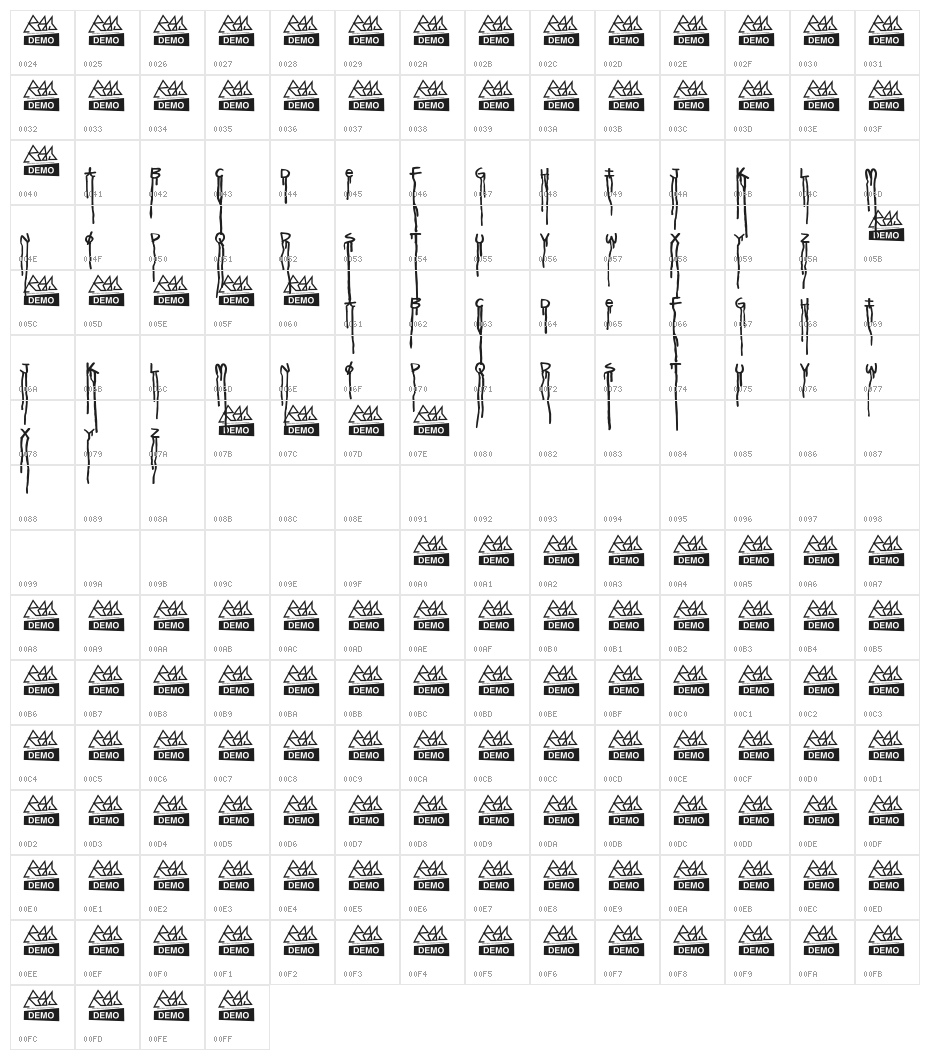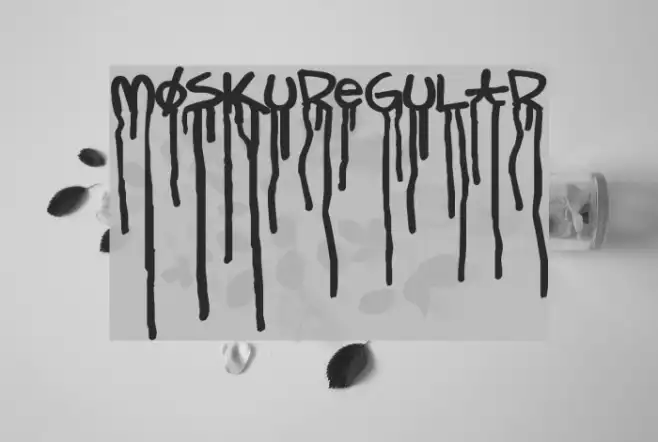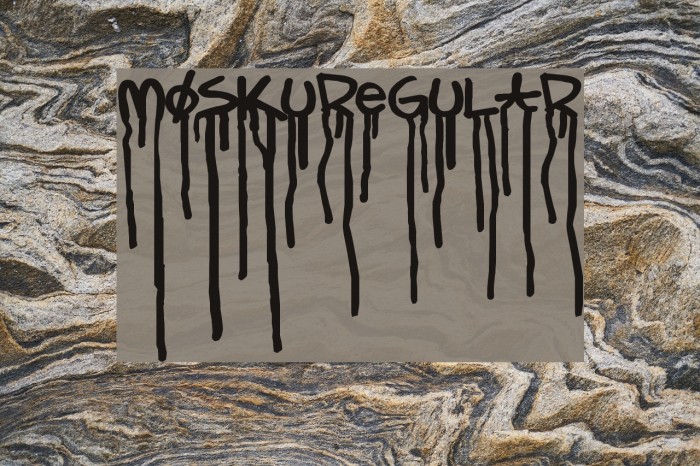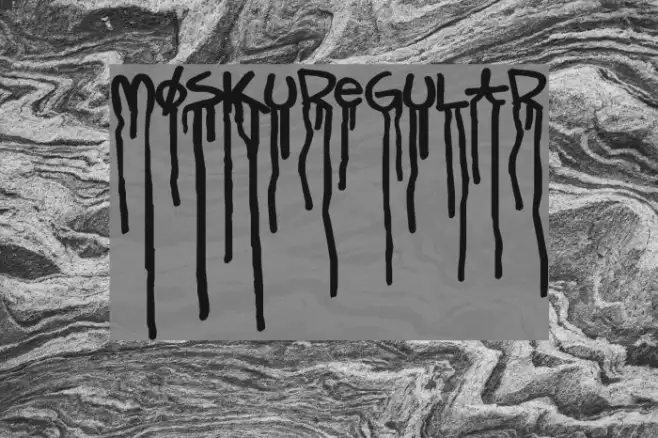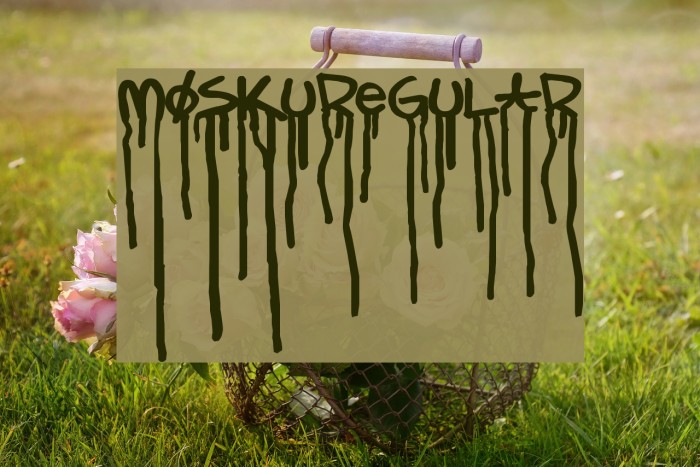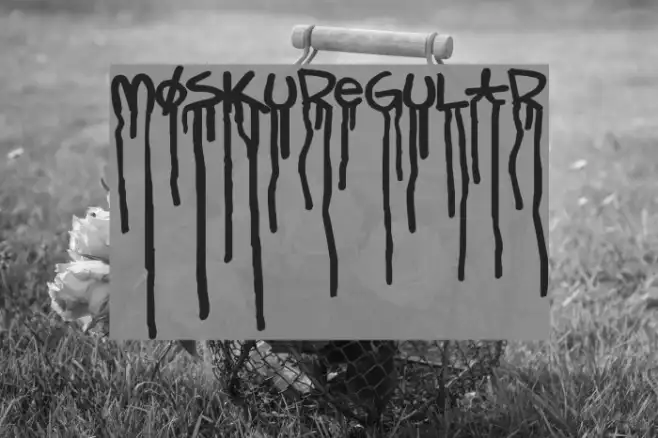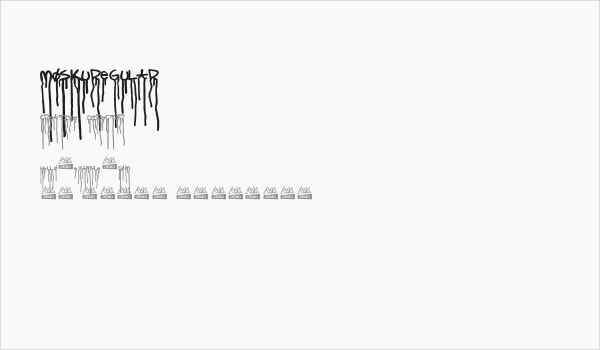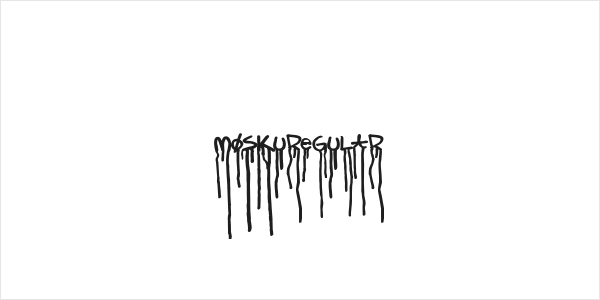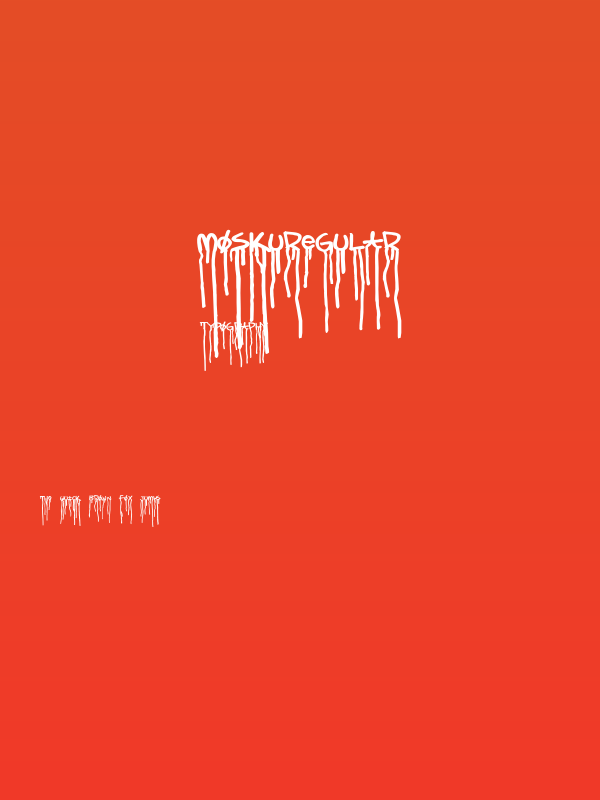
mOSkURegular Font
mOSkURegular Description
This font features a unique and striking design with elongated, dripping strokes that create a dramatic and eerie effect. The letters appear as if they are melting or dripping, giving the font a distinctly gothic and horror-inspired aesthetic. The uppercase and lowercase letters maintain this consistent style, with each character exhibiting a fluid, almost liquid appearance. The font's bold and artistic nature makes it stand out, capturing attention with its unconventional and creative form. It is particularly suitable for projects that aim to evoke a sense of mystery, darkness, or avant-garde artistry.
| Overall Style | Gothic, Artistic, Dramatic |
| Use Case | Headlines, Posters, Artistic Designs |
| Proposed Projects | Ideal for horror-themed posters, Halloween invitations, album covers, or any project requiring a dramatic and artistic touch. |